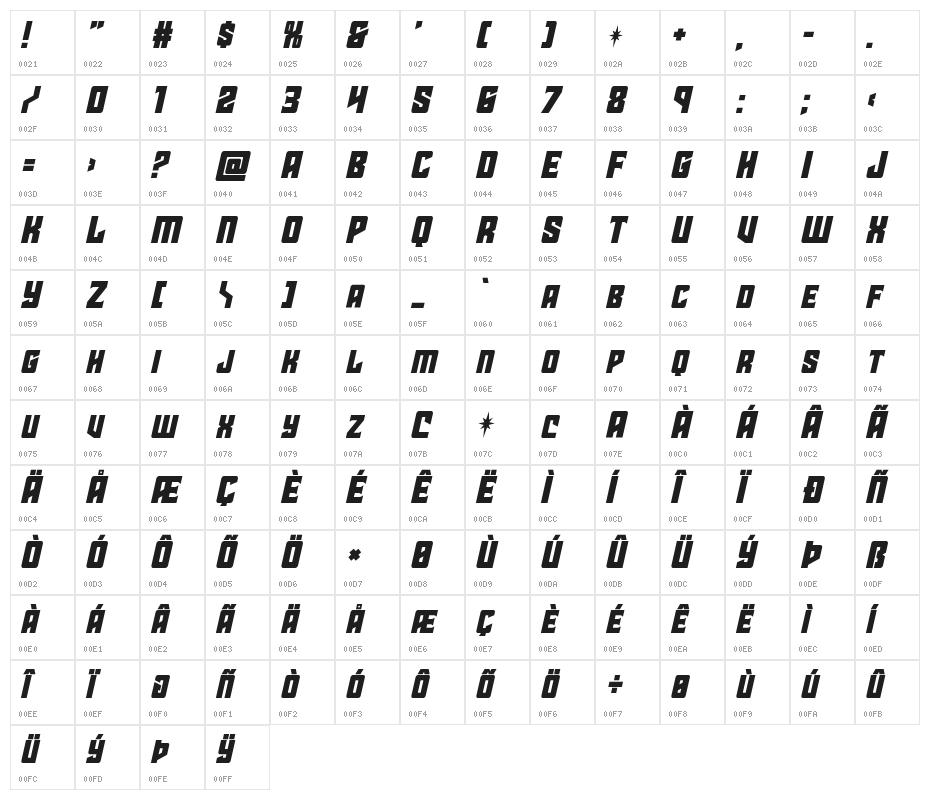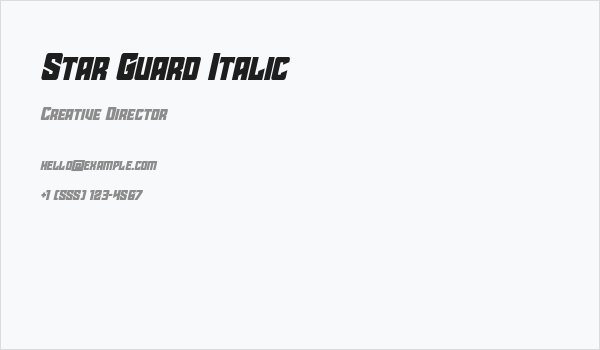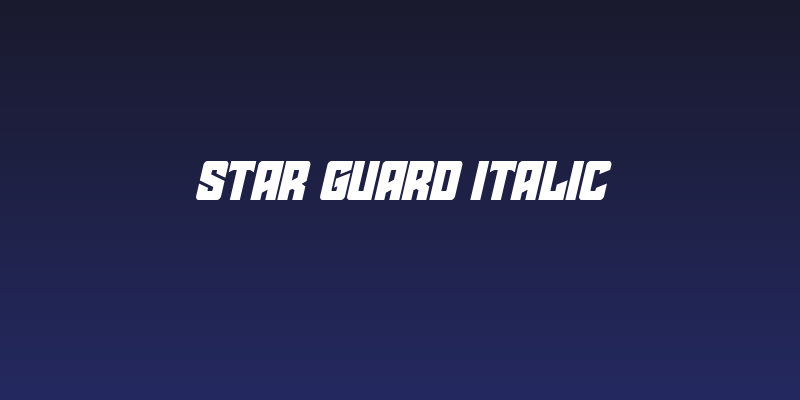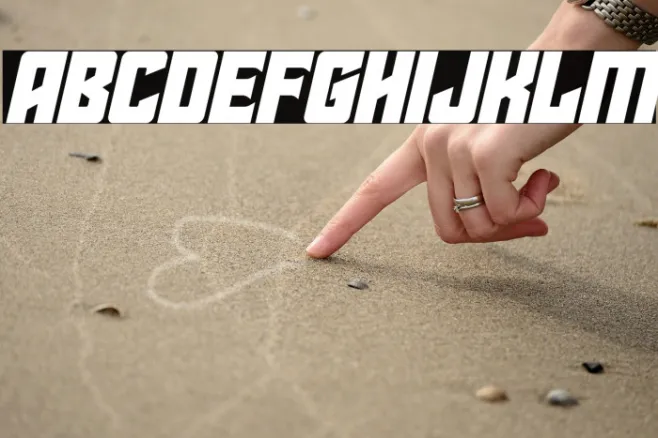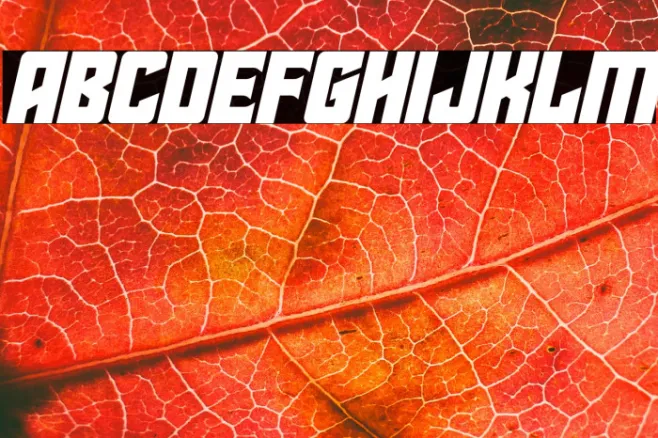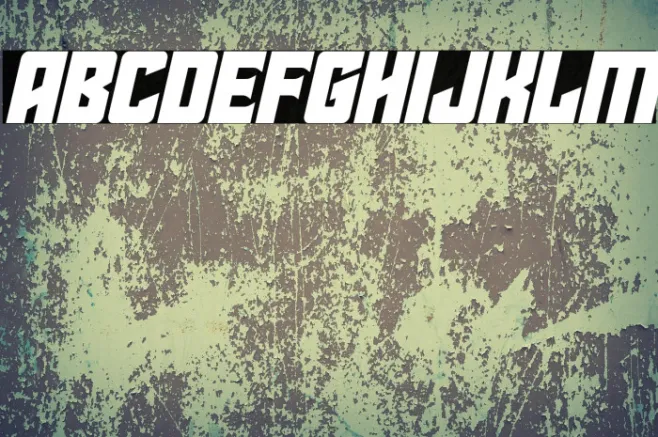
Star Guard Italic Font
Star Guard Italic Description
This font features a bold, italicized style with a strong, angular design. The characters are sharply defined with a futuristic and dynamic appearance, making it stand out with its unique geometric shapes. The uppercase and lowercase letters maintain a consistent slant, enhancing the italic effect. Numbers and special characters follow the same bold and angular theme, ensuring uniformity across all glyphs. The font's design is suitable for projects that require a modern and edgy look, with a touch of sci-fi or tech-inspired aesthetics.
| Proposed Projects | Ideal for sci-fi movie posters, tech branding, video game titles, and futuristic event flyers. |